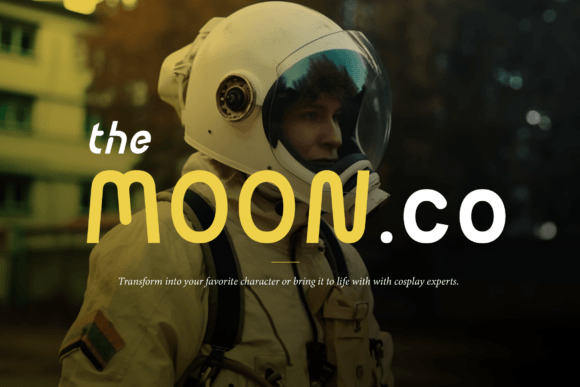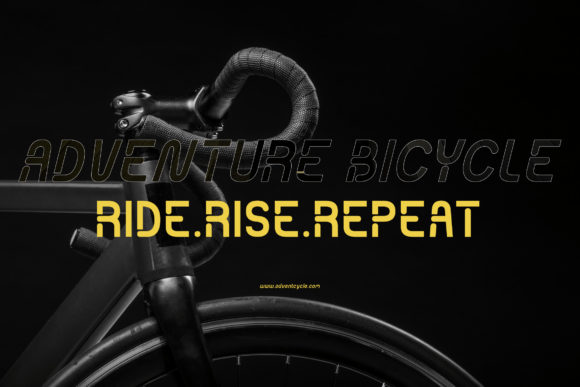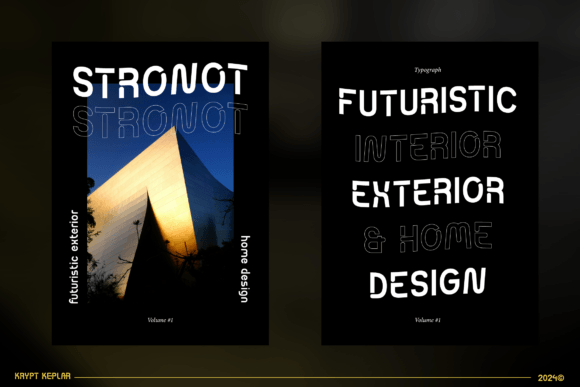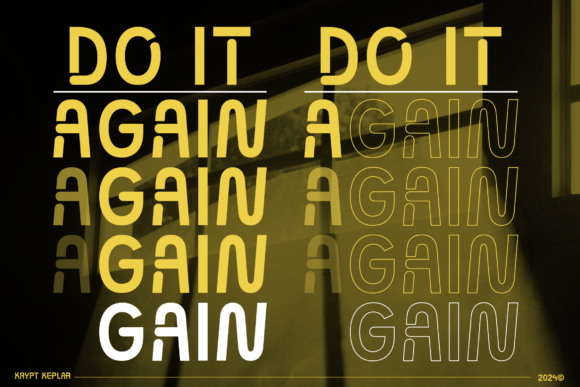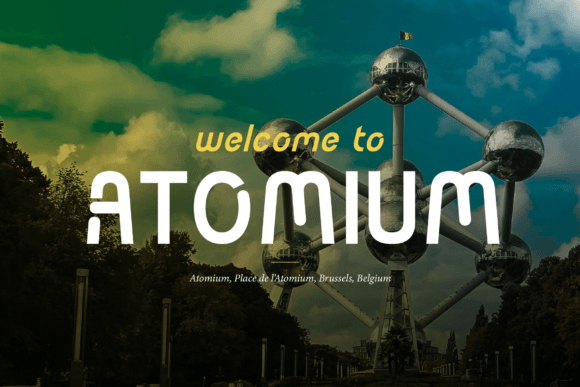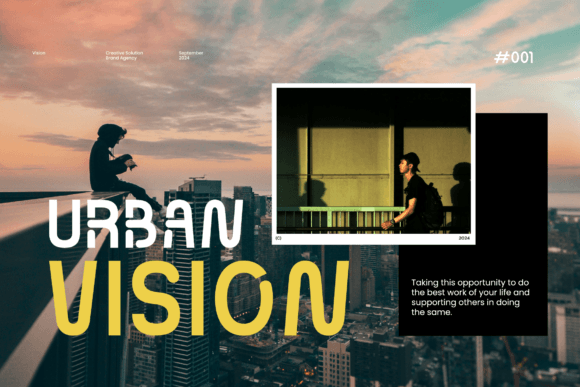
Introduction to Krypt Keplar Font
As a designer, have you ever been stuck on a creative project, desperately searching for the perfect font to bring your vision to life? The hours tick by, and your eyes wander through countless design resources, until suddenly, you stumble upon it – the one font that makes everything click. For me, that moment came when I discovered the Krypt Keplar Font. Its bold, modern sans-serif style was like a breath of fresh air, and I knew I had to share it with fellow designers.
Whether you’re working on a high-profile campaign or a personal creative project, the Krypt Keplar Font is a valuable addition to any design toolkit. With its clean lines and unique style, it’s perfect for adding a contemporary look to your work. And the best part? It’s available for a free download, making it accessible to designers of all levels.
Key Features of Krypt Keplar Font
- Unique design: Krypt Keplar Font offers a distinctive and creative look, making it an ideal design resource for various projects.
- High-quality font: The font is designed with high precision, ensuring crisp and clear text display, perfect for any creative project.
- Transparent background: This font features a transparent background, allowing for easy integration into various design elements and backgrounds.
Honest Review: Krypt Keplar Font
I recently had the chance to work with the Krypt Keplar Font and I must say, it’s been a solid addition to my design resources. The font is a high-quality, free download that has really elevated the look of my creative projects.
- The font’s unique design and crisp lines make it perfect for modern and futuristic-themed projects.
- It’s incredibly versatile and can be used for a wide range of creative applications, from logos and branding to digital displays and signage.
- The font’s transparent background makes it easy to use with other design elements and ensures that it stands out without overwhelming the rest of the composition.
- The font is not as customizable as some other options, which may limit its use for more complex design projects.
- It may not be suitable for projects that require a more traditional or serif font style.
Overall, I’m really impressed with the Krypt Keplar Font and would highly recommend it to anyone looking for a high-quality, free design resource for their creative projects.
Tips for Getting the Most Out of Krypt Keplar Font
To get the most out of the Krypt Keplar Font, consider using it in conjunction with a transparent background to create a unique and eye-catching design. You can also experiment with different font sizes and styles to add visual interest to your project.
The Krypt Keplar Font is ideal for use in a variety of creative projects, including logos, business cards, and social media graphics. Its unique design and high-quality appearance make it a great choice for any design project requiring a distinctive font.